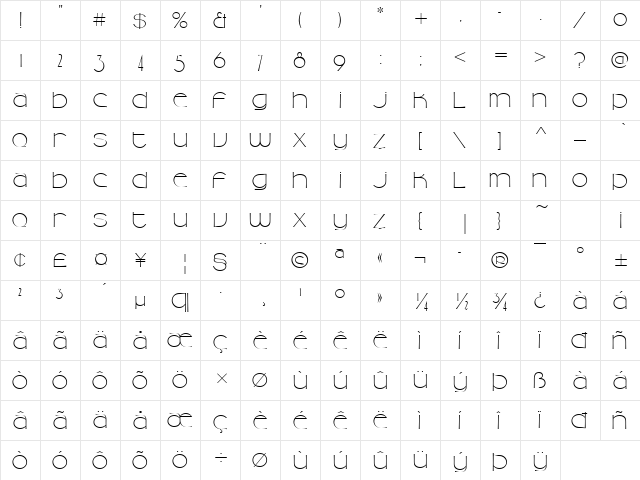
URWCampanusD Regular
Design Context for URWCampanusD Typeface
URWCampanusD offers clean, dependable letterforms without strong stylistic allegiance, making it a practical choice for designers who need flexibility.